Questa Project
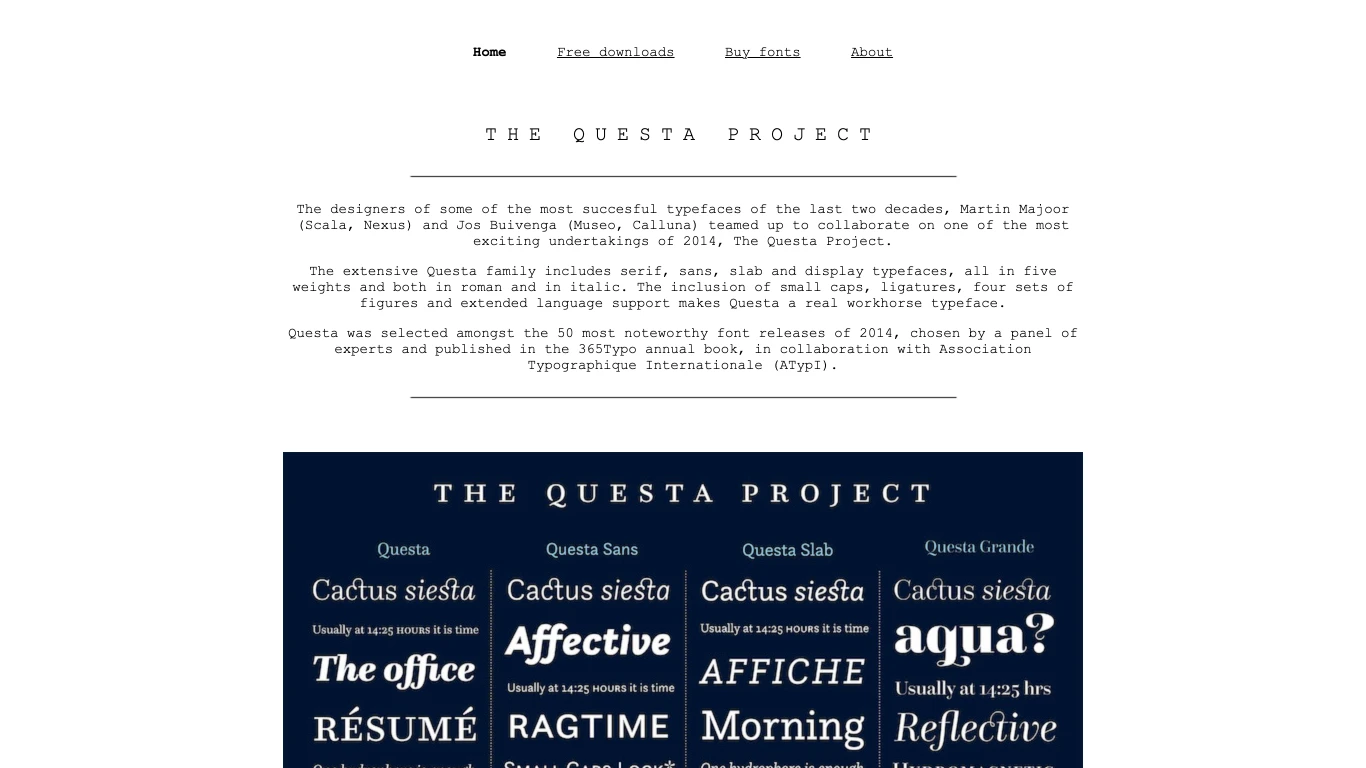
Netherlands
2010
The Questa Project is a type foundry established in 2010 by renowned Dutch designers Martin Majoor and Jos Buivenga. Sparked by their collaboration on the Questa superfamily—which includes serif, sans, slab, and display styles—their work reflects Majoor's philosophy of deriving sans from serif, yielding cohesive, versatile systems. Known for the extensive Questa family, the foundry has crafted high-contrast, modern Didot-inspired serif fonts with matching sans and slab companions